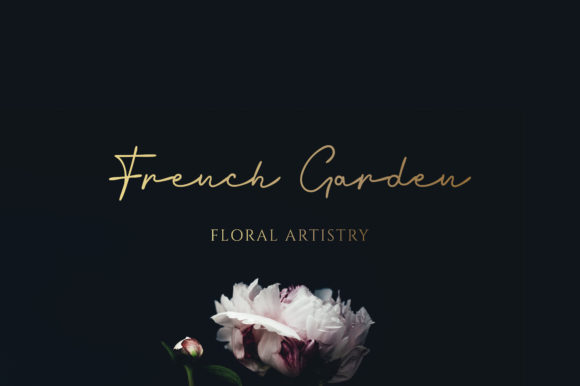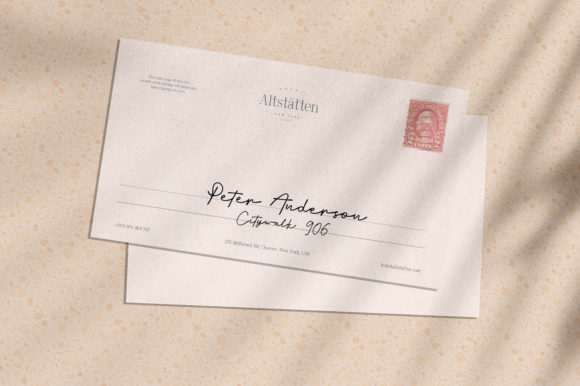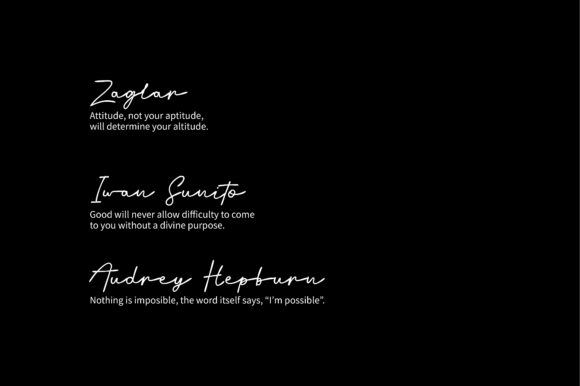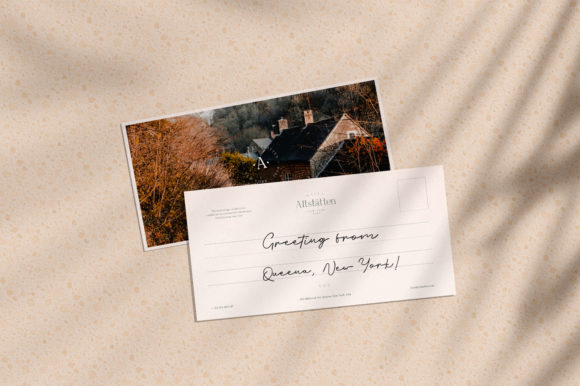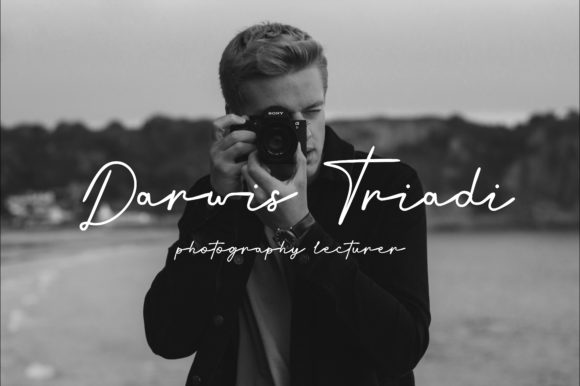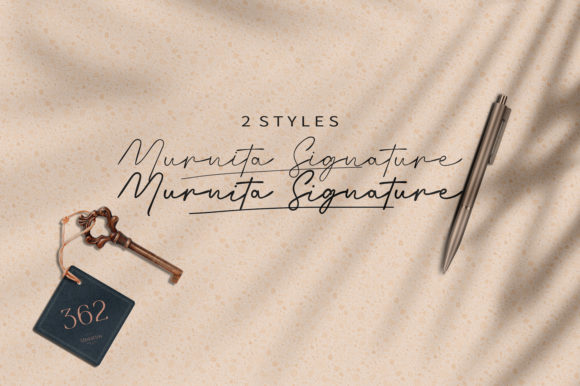
Unlocking the Potential of Your Designs with Murnita Signature Font
Have you ever been working on a creative project, and the perfect finishing touch eludes you? Perhaps it’s the subtle nuance of a handwritten signature that elevates your design from good to great. If you’re a designer, you know the importance of attention to detail, and the right font can make all the difference.
Enter the Murnita Signature Font, a game-changing design resource that brings a natural, high-quality feel to your creations. With its unique blend of contemporary characters, this font is perfect for adding a personal touch to your designs, from logos and branding to digital art and more.
Key Features of Murnita Signature Font
- Unique Script Font Design: Murnita Signature Font offers a beautiful, hand-written style that adds a personal touch to any creative project.
- Perfect for Creative Projects: Murnita Signature Font is designed to add a touch of elegance and sophistication to any creative project, from wedding invitations to business cards.
Honest Review: Murnita Signature Font
As a designer, I’m always on the lookout for high-quality design resources to elevate my creative projects. The Murnita Signature Font has caught my attention, and I’m excited to share my honest review with you.
What works well: ✨ The Murnita Signature Font is incredibly versatile, making it perfect for a wide range of creative projects. Its modern and elegant design style lends itself well to both digital and print applications. The font is also highly customizable, allowing me to adjust the size, color, and spacing to suit my design needs.
What works well: ✨ The font’s transparent background option makes it easy to overlay text on images or other design elements, adding an extra layer of depth and visual interest to my designs.
- Easy to customize
Overall, the Murnita Signature Font is a solid addition to any designer’s toolkit, offering a free download option and high-quality design that’s perfect for creative projects. While there are some limitations, I believe the benefits outweigh the drawbacks, making it a worthwhile resource for designers looking to elevate their work.
Design Tips
To get the most out of the Murnita Signature Font, use it on a transparent background to give your design a clean and modern look. You can also use it in combination with other design resources, such as graphics and images, to create a high-quality design. Download the font for free to get started on your creative project today.
The Murnita Signature Font is a versatile font that can be used in a variety of design projects, including logos, business cards, and social media graphics. It is also a great font to use in presentations and documents, such as PowerPoint and Word, to give them a professional and polished look.